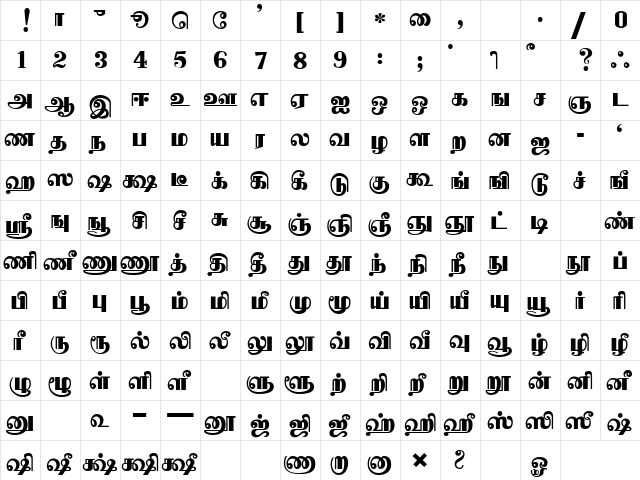
TBoomiH Bold
Design Context for TBoomiH Typeface
TBoomiH offers clean, dependable letterforms without strong stylistic allegiance, making it a practical choice for designers who need flexibility. The heavy weight commands attention and anchors typographic hierarchies.